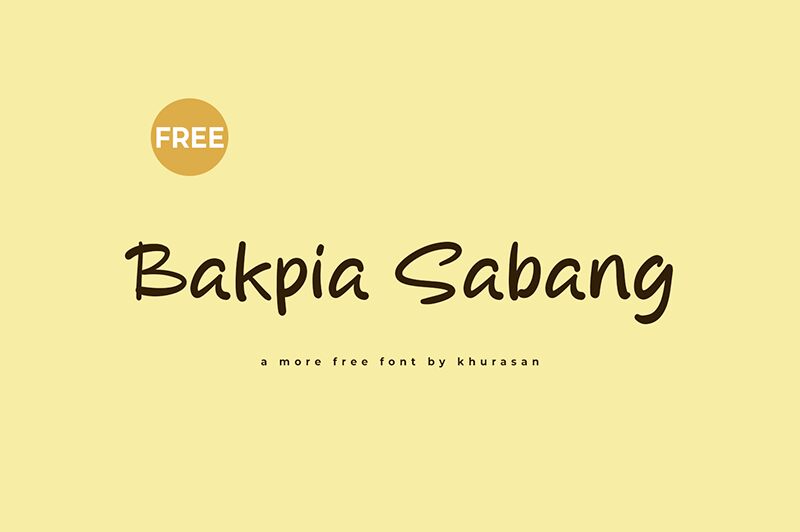
Bakpia Sabang
Bakpia Sabang, a handwritten font designed by Khurasan, exudes a captivating blend of elegance and authenticity. Its whimsical strokes and organic flow evoke a sense of handcrafted charm, inviting viewers to immerse themselves in its artisanal allure. The font's fluid lines and expressive character variations lend a versatile and dynamic quality, making it a compelling choice for a wide range of design projects.
Bakpia Sabang's versatility shines through its ability to seamlessly transition between formal and casual settings. Its natural, hand-lettered aesthetic lends itself beautifully to branding, packaging, and editorial design, where it can infuse a touch of personalized character. Furthermore, the font's adaptability extends to digital interfaces, where its legible and visually engaging form can enhance user experiences and bring a touch of artisanal flair to digital spaces.